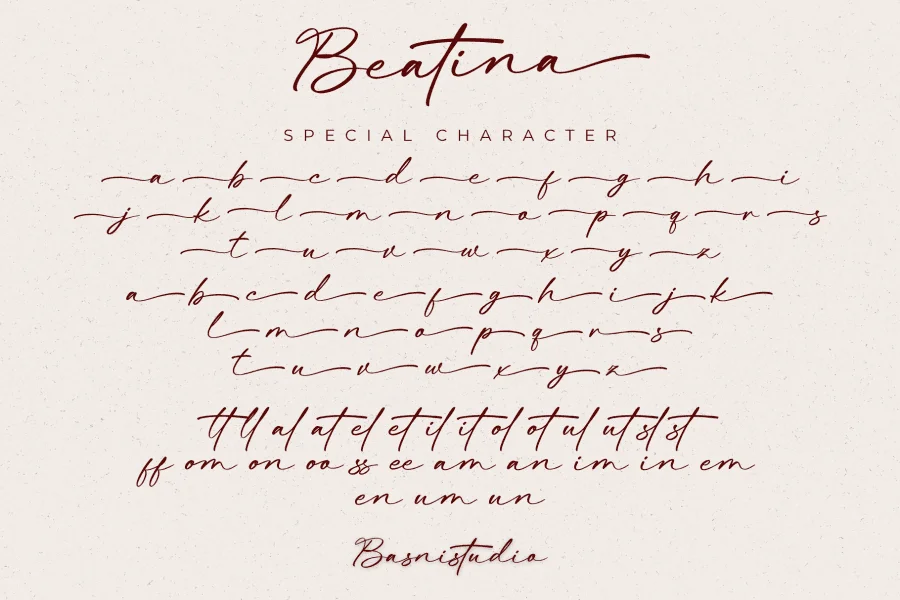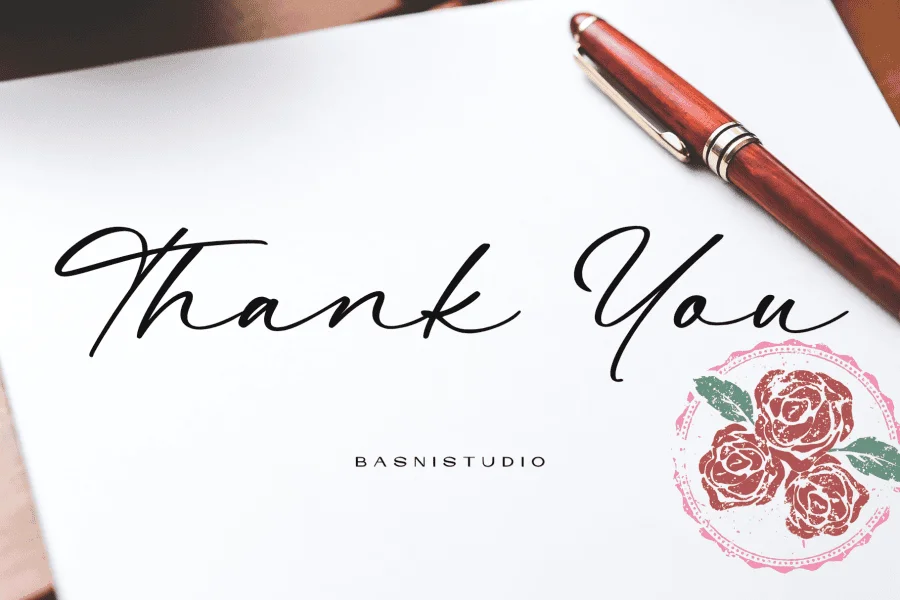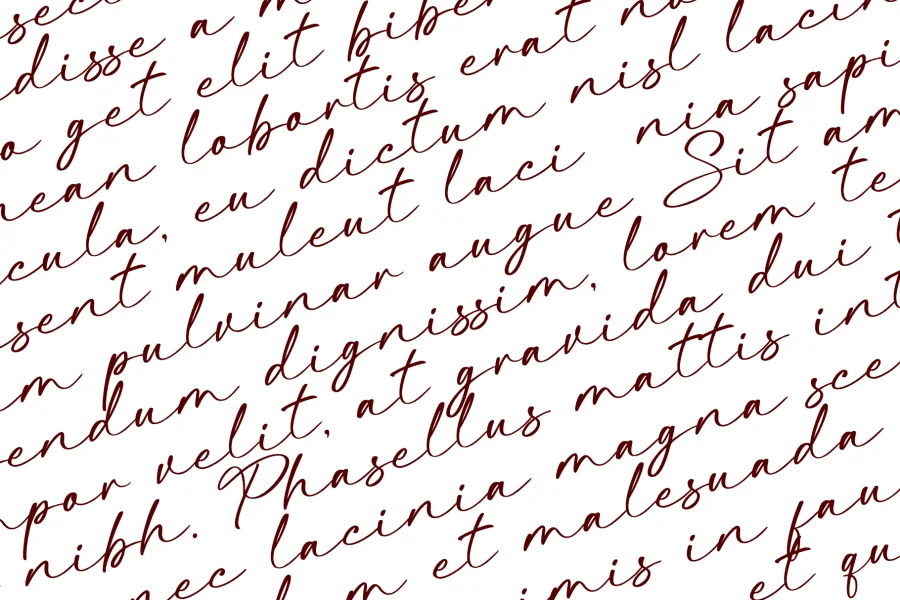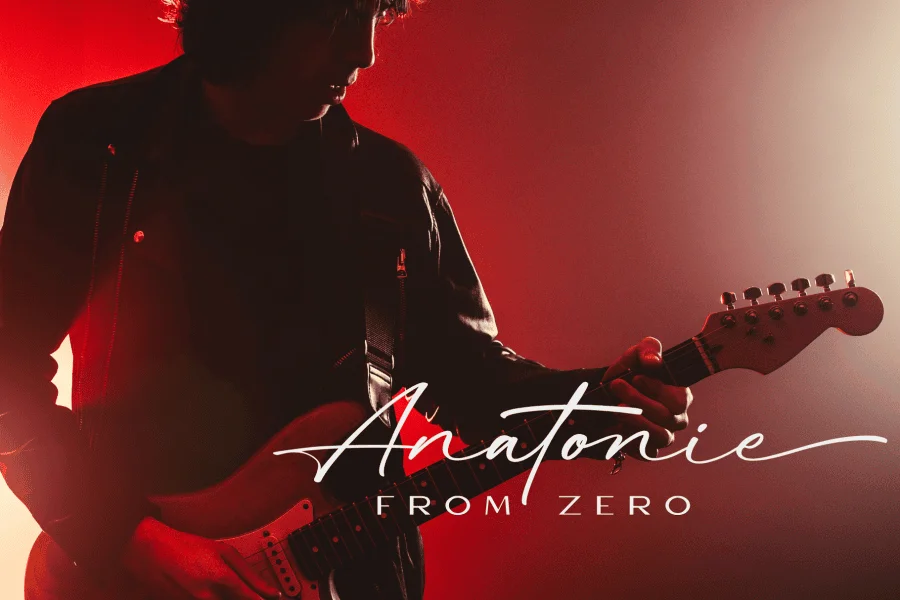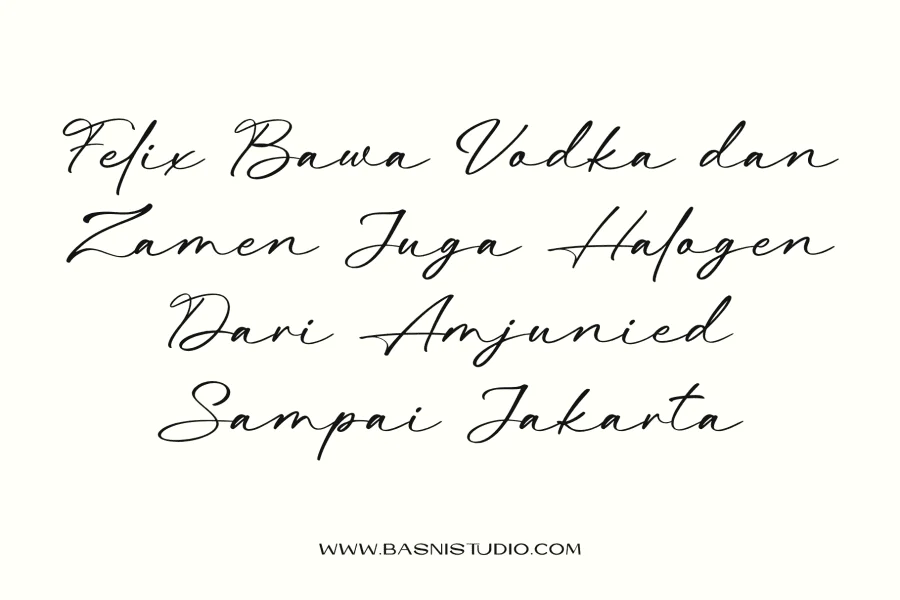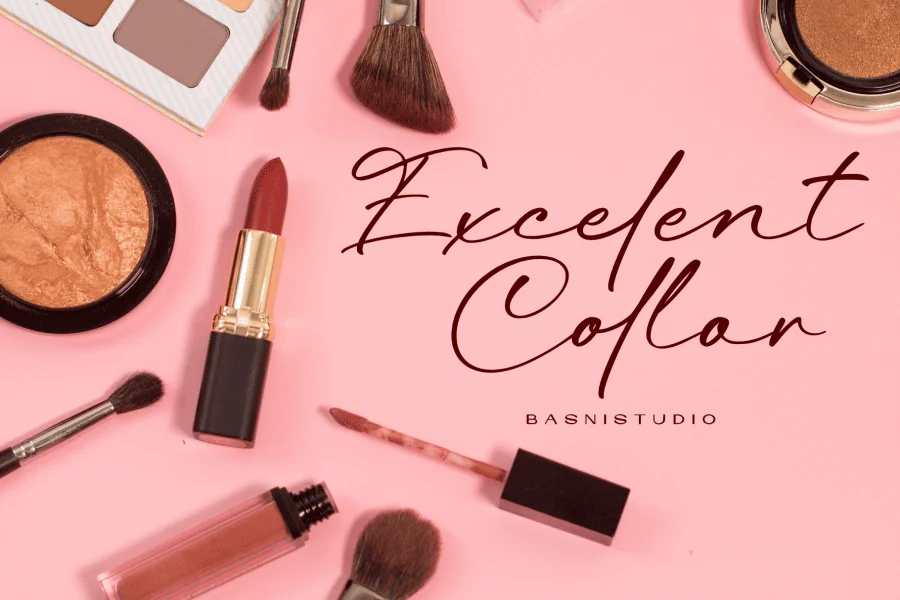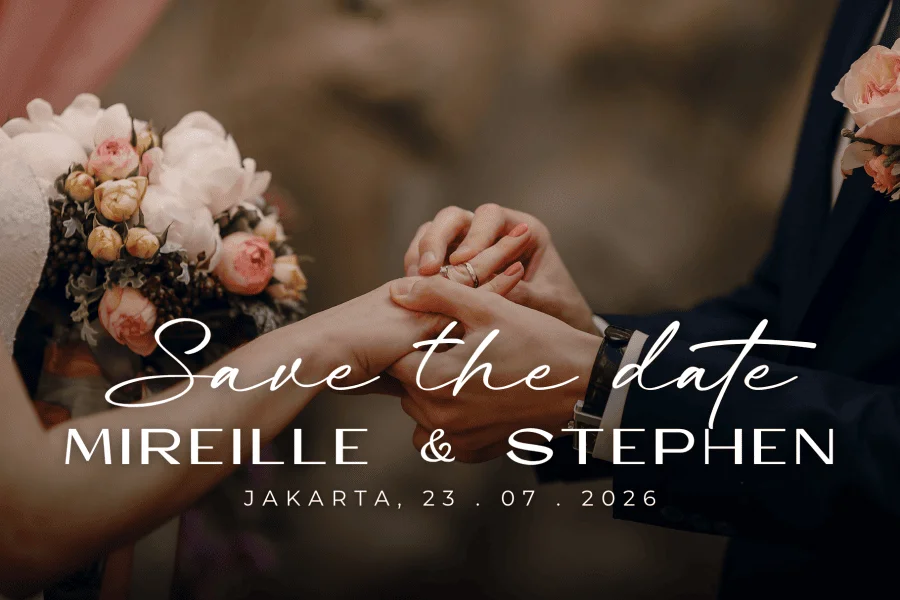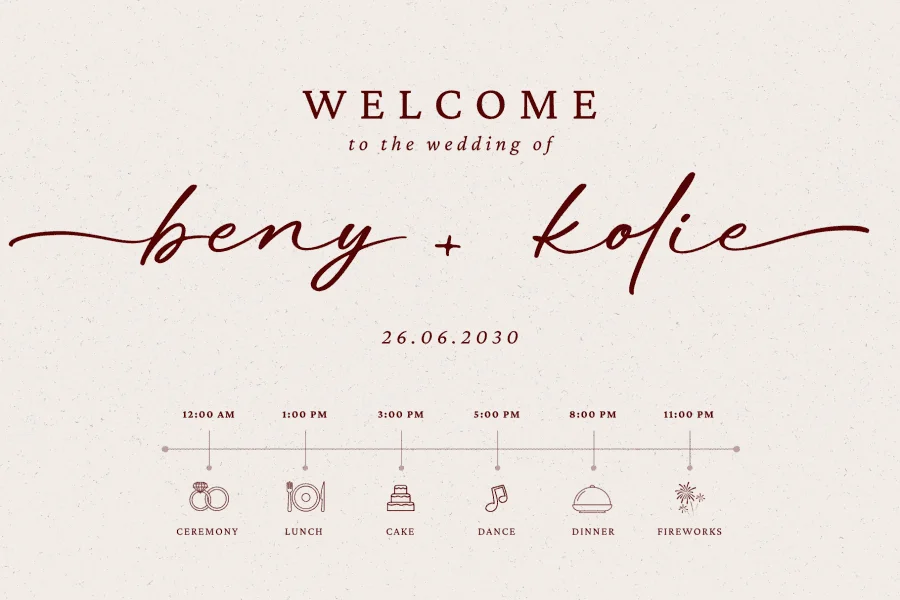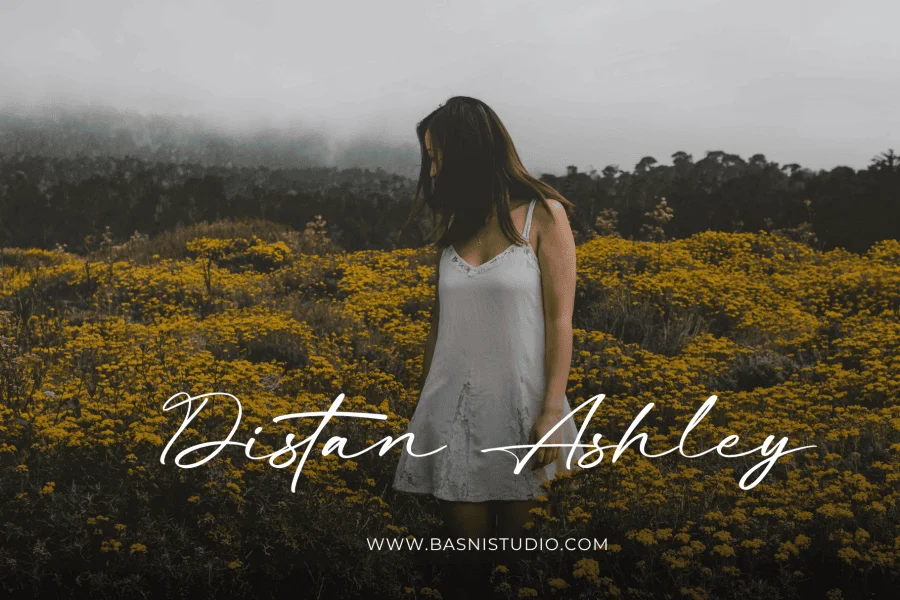
Beatina – Signature Font crafted with authentic Brush for Natural & Casual touch for everything from branding and social media to invitations and packaging.